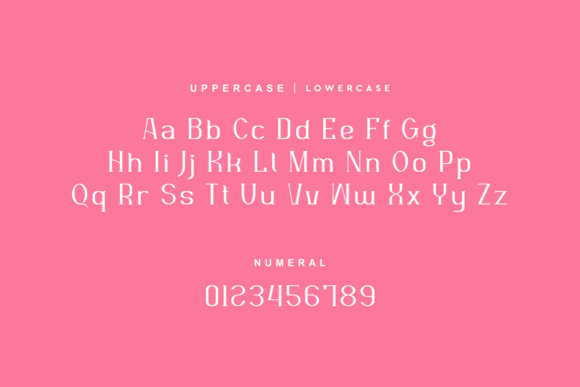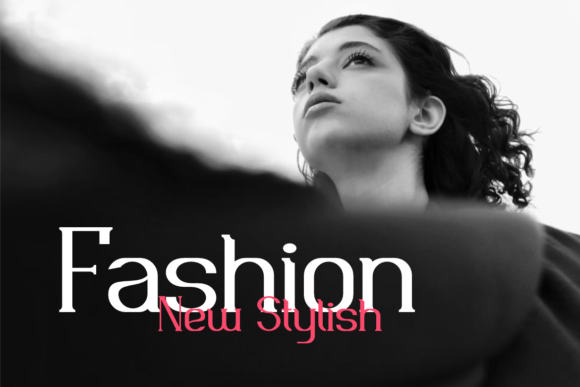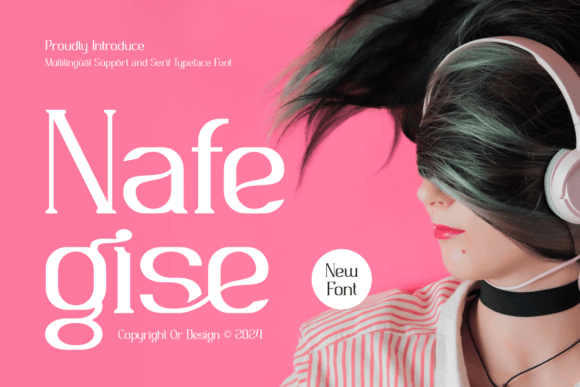
Nafegise Font
Nafegise Font is a stylish and incredibly elegant serif font. It looks stunning on wedding invitations, thank you cards, quotes, greeting cards, logos, business cards and every other design which needs a handwritten touch.